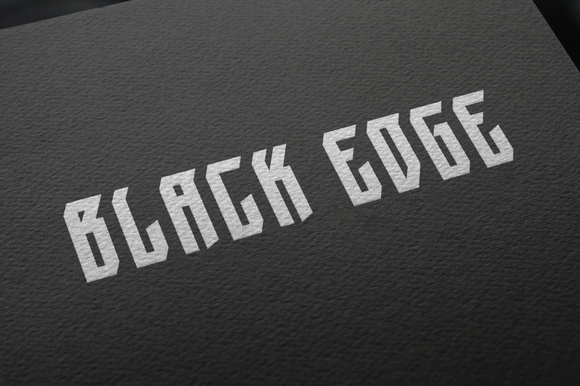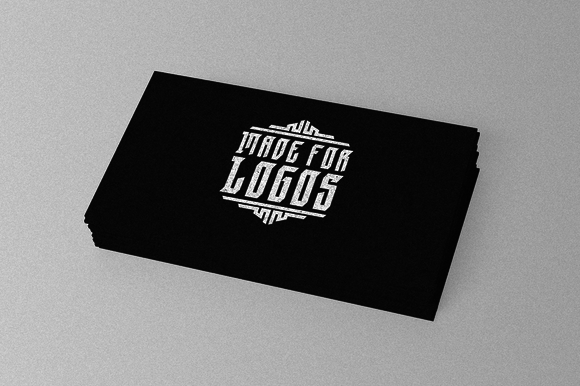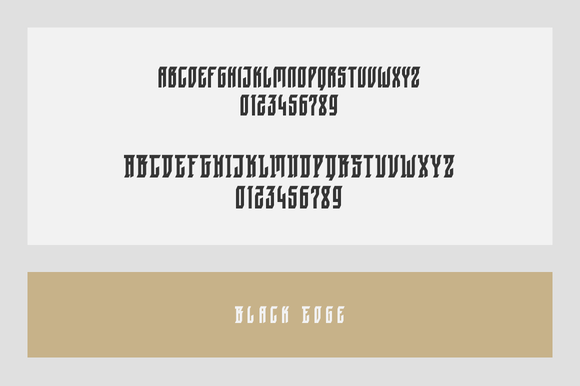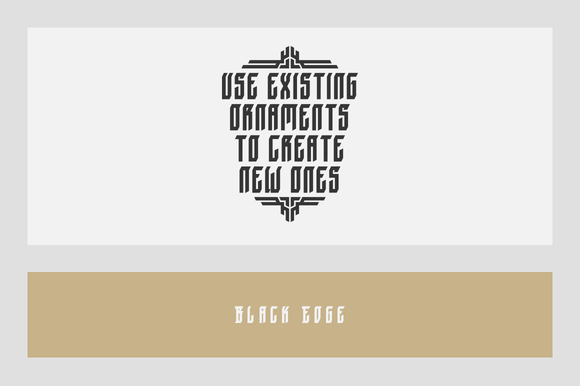
The Black Edge Font: A Modern Twist on Classic Blackletter
I’ll never forget the design project that led me to discover the Black Edge font. I was working on a branding campaign for a luxury fashion brand, and I needed a font that would convey a sense of sophistication and elegance. After hours of searching through font libraries and testing out different options, I stumbled upon Black Edge. Its unique blend of modern minimalism and classic blackletter style instantly caught my eye, and I knew I had found the perfect fit.
So, what do I love about Black Edge? Here are a few things that make it stand out:
- ✨ Unique and distinctive style: Black Edge has a bold, eye-catching design that’s perfect for making a statement.
- ✅ Highly legible: Despite its ornate style, Black Edge is surprisingly easy to read, even at smaller font sizes.
- 💡 Versatile: This font can be used for everything from luxury branding to packaging design to digital graphics.
Of course, no font is perfect, and Black Edge does have a few quirks:
- 🤔 Limited use of lowercase letters: Black Edge is primarily designed for use with uppercase letters, which can limit its use in certain design projects.
- ⚠️ May not be suitable for body text: Due to its ornate style, Black Edge may not be the best choice for longer blocks of text.
Black Edge was inspired by the works of modern typographers who sought to push the boundaries of traditional blackletter design. The font’s designer drew inspiration from a range of sources, including art deco, minimalism, and modern calligraphy.
| What is the Black Edge font? | Black Edge is a strongly stylized blackletter font, inspired by modern and minimalistic typography. |
| What is Black Edge used for? | Black Edge is a versatile font that can be used for a range of design projects, including luxury branding, packaging design, and digital graphics. |
| Is Black Edge easy to read? | Yes, despite its ornate style, Black Edge is surprisingly easy to read, even at smaller font sizes. |
| Can I use Black Edge for body text? | No, Black Edge is not suitable for body text due to its ornate style. It’s best used for headings and titles. |